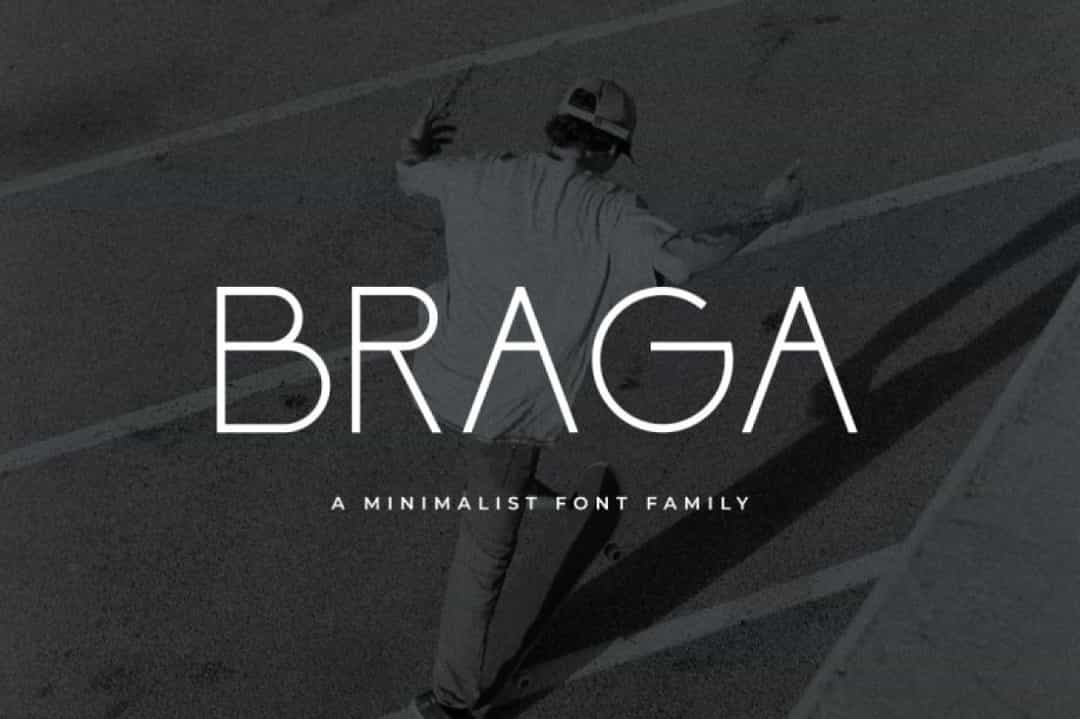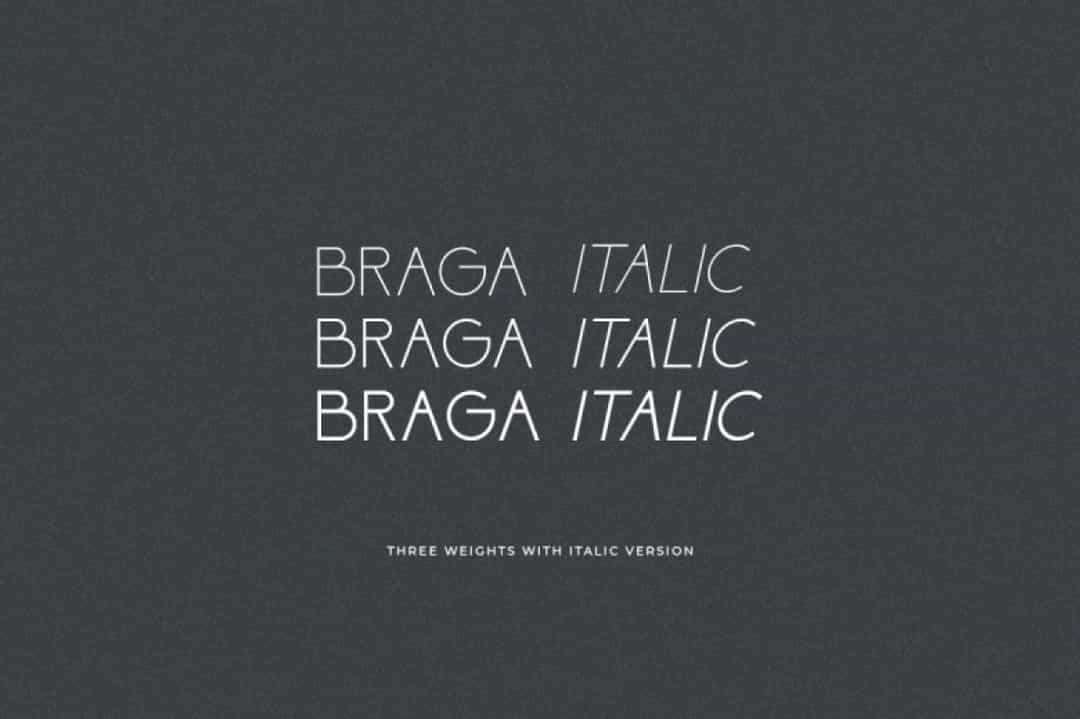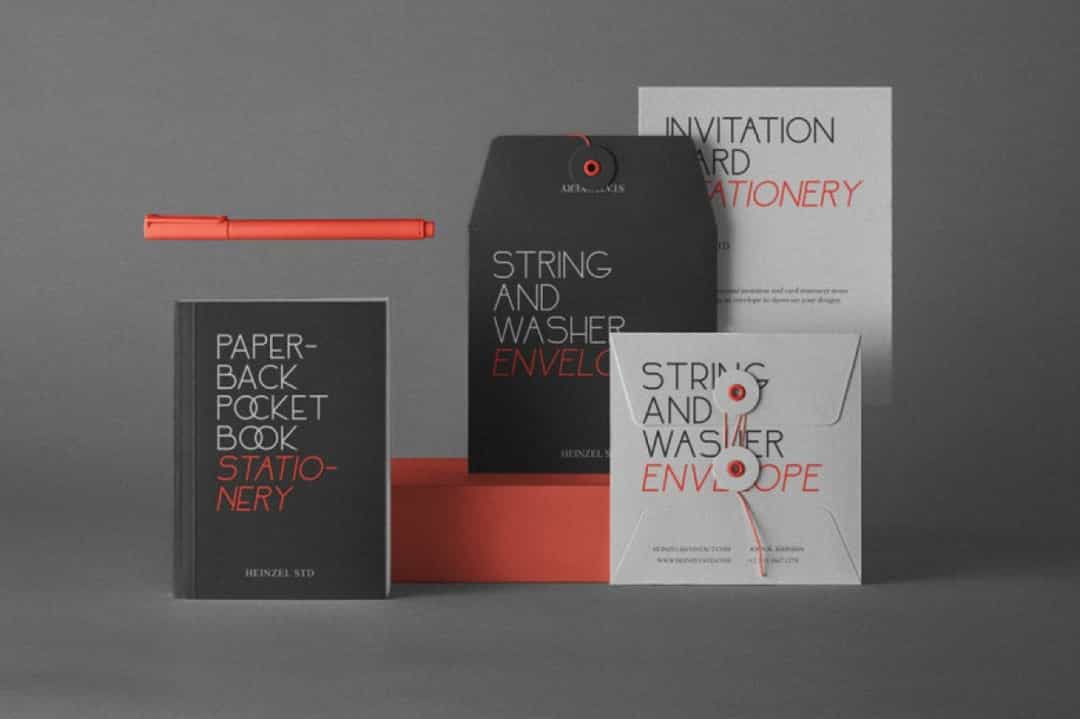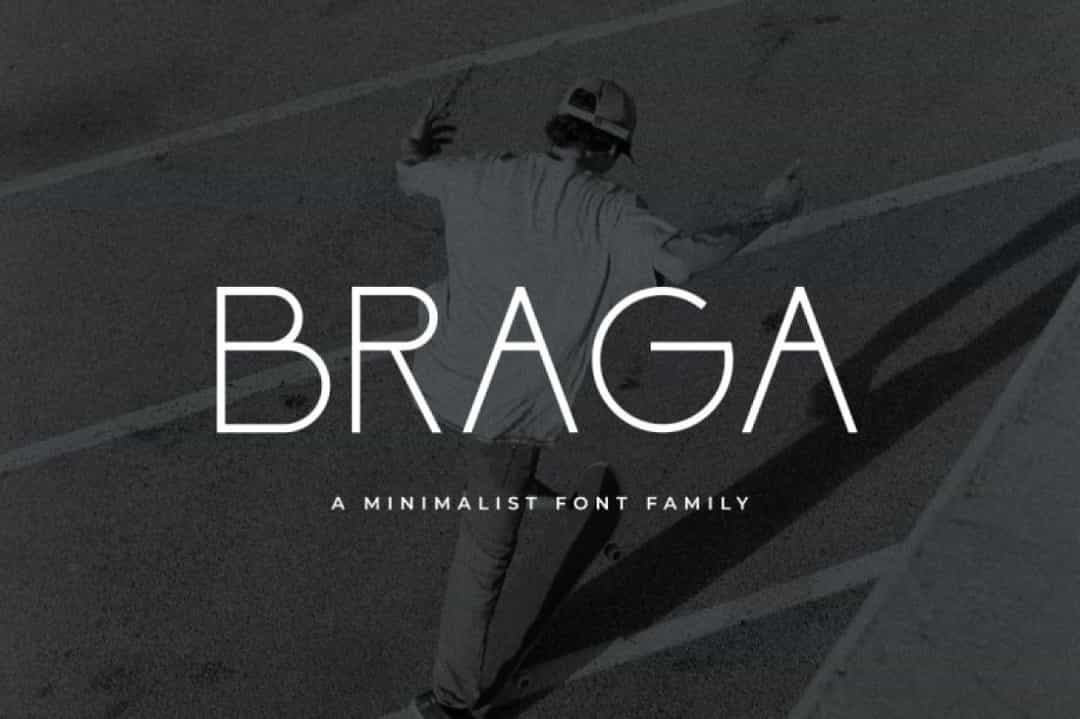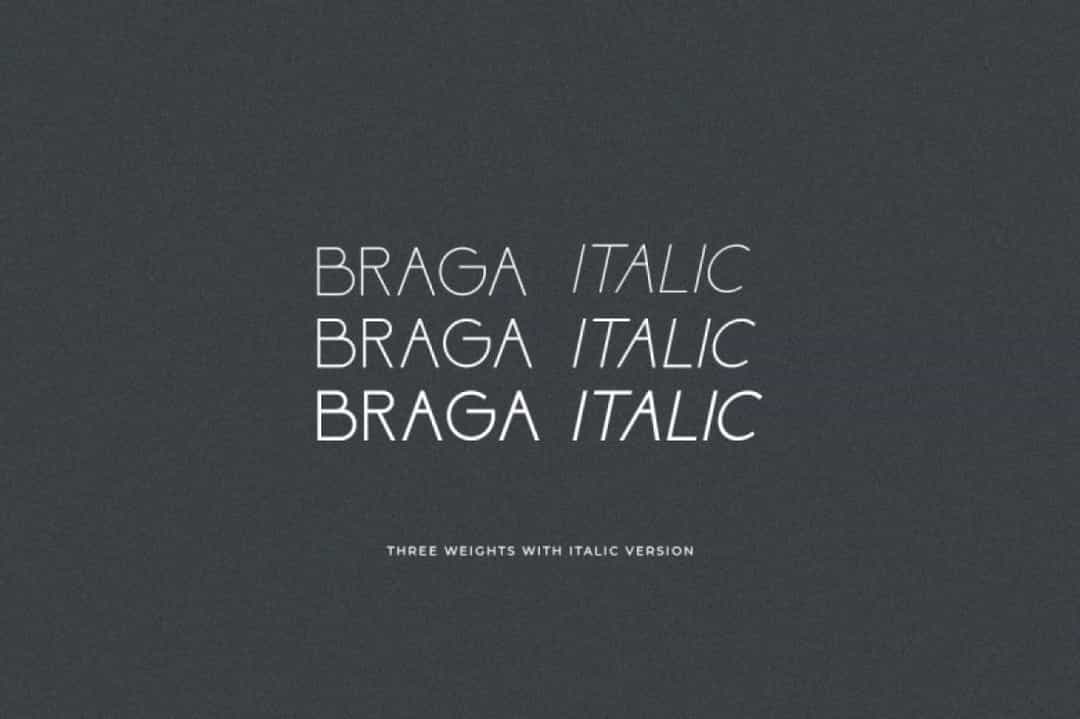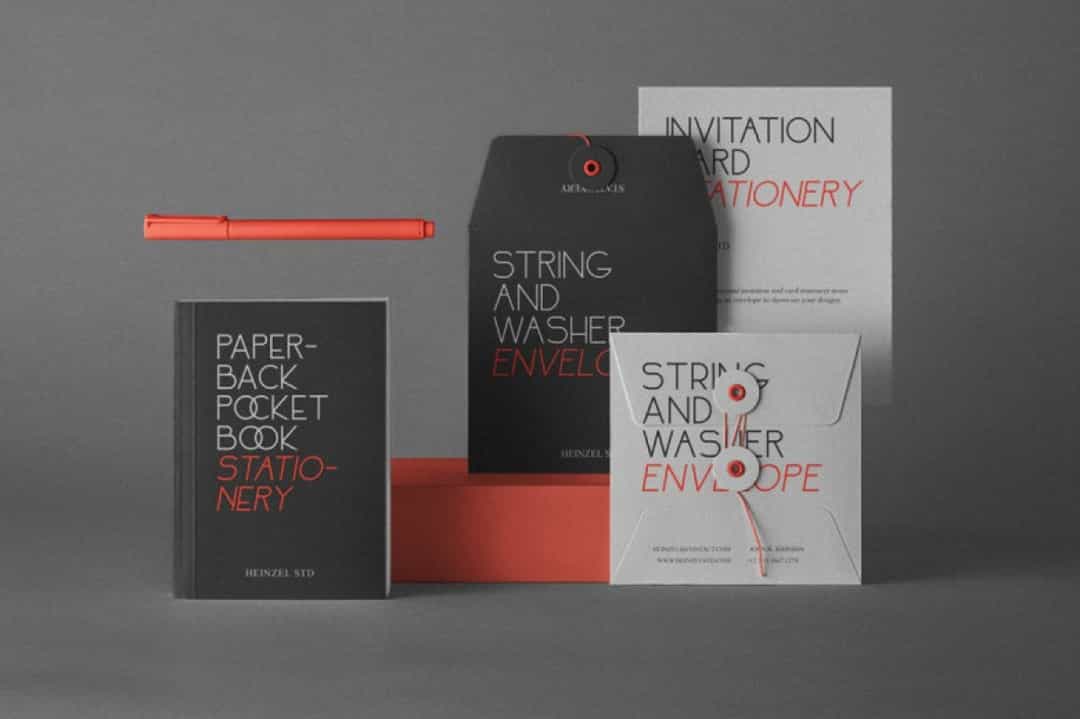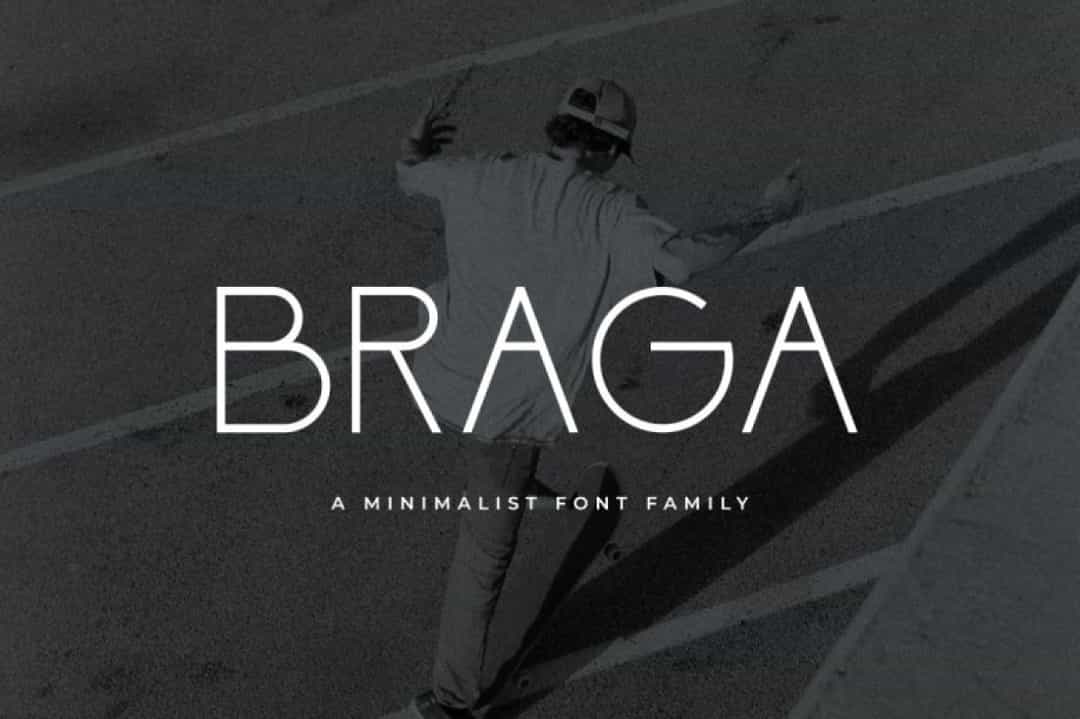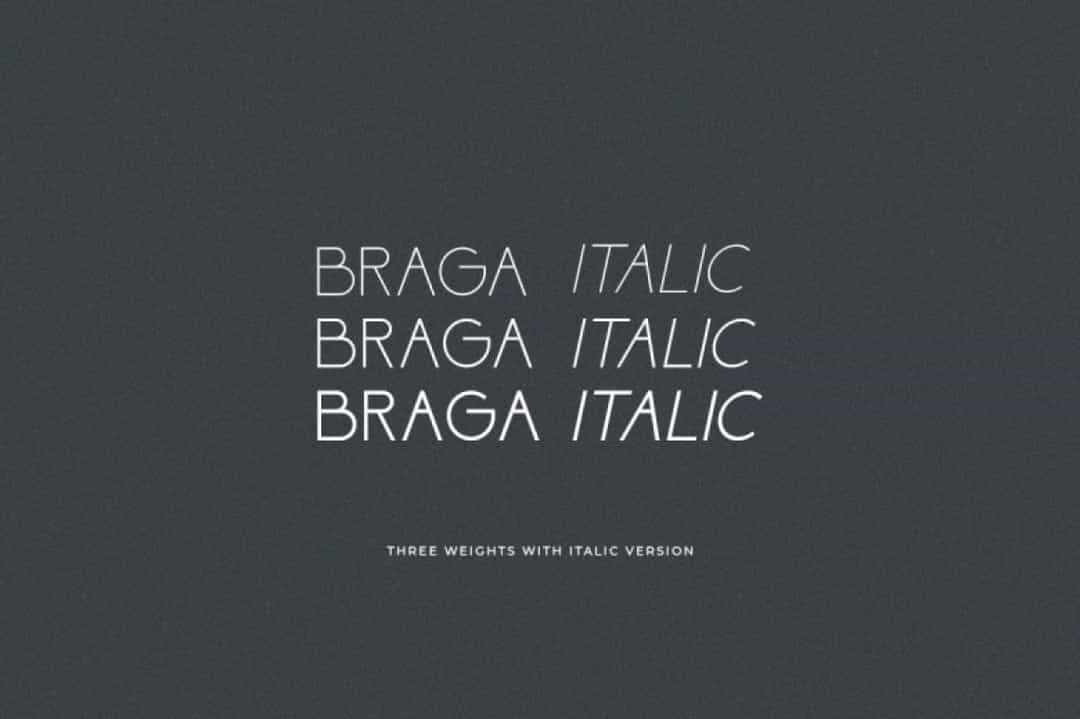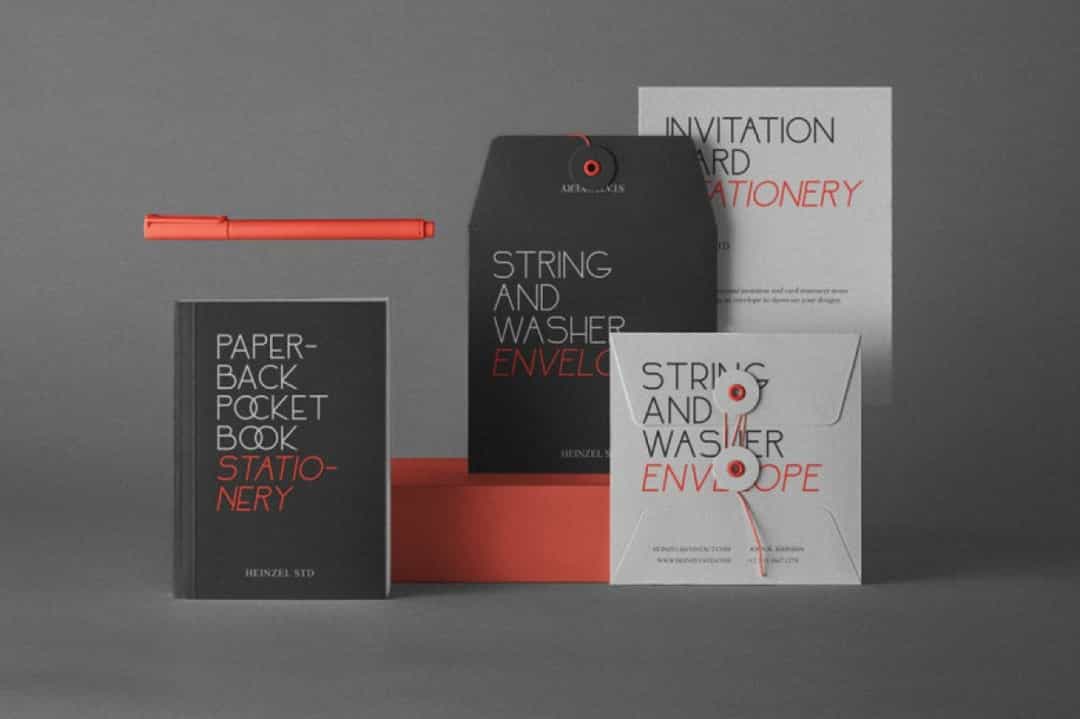
Braga is an elegant and contemporary sans serif font with a modern and stylish aesthetic, perfect for creating beautiful wedding invitations, stationary artwork, logos, branding headlines, headings, magazines, captivating tweets on social networks and much more! PUA encoded for easy accessing of its amazing characters and ligature!